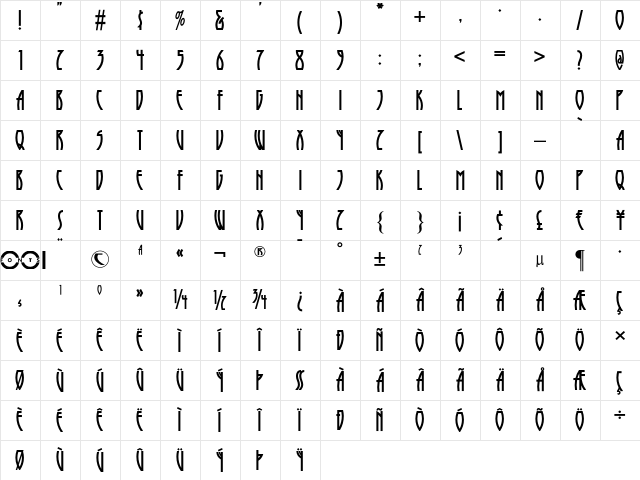
Runy Tunes Revisited NF Regular
Foundry: Nick's Fonts
Designer: Nick Curtis
Runy Tunes Revisited NF Family
Runy Tunes Revisited NF Regular
Complete Runy Tunes Revisited NF Regular glyph index. Displaying only characters natively supported by Runy Tunes Revisited NF Regular font.
Design Context for Runy Tunes Revisited NF
Runy Tunes Revisited NF is a composed and adaptable typeface that performs quietly and consistently across a wide range of design contexts.